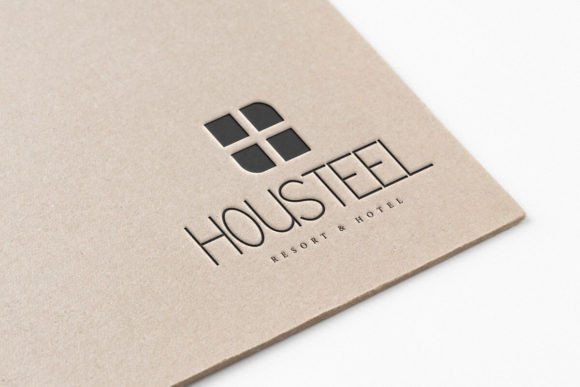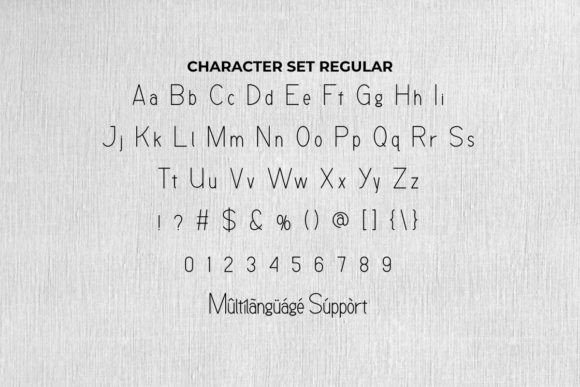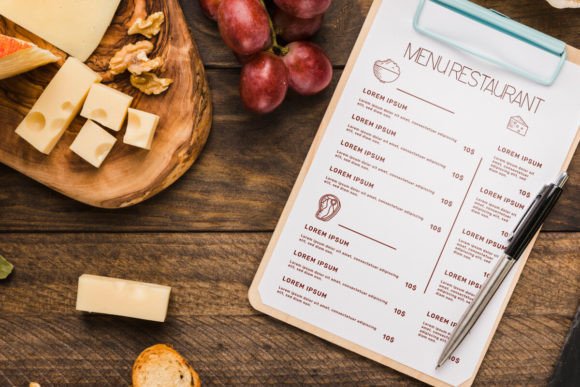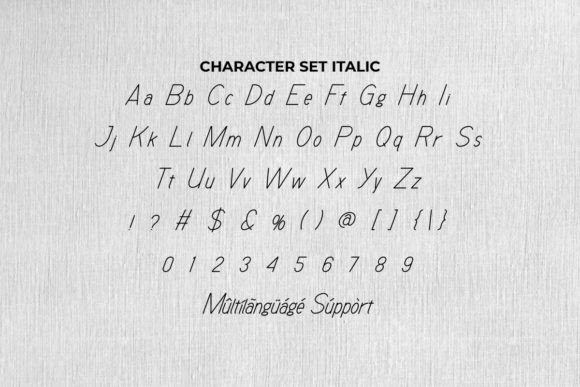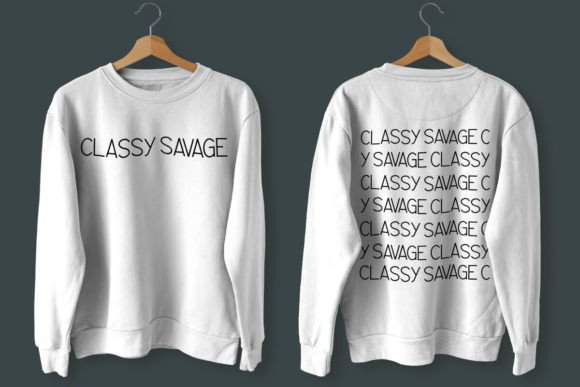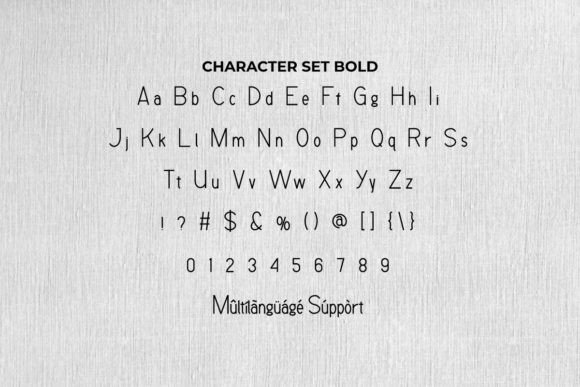
Creating the Perfect Visual Hierarchy
Have you ever stared at a blank page, trying to decide how to organize your design elements? The struggle is real, but it’s also a common occurrence for designers. We’ve all been there, trying to balance text, images, and other visual elements to create a cohesive look. That’s where the right font comes in – and we’re excited to introduce you to the Checklist Font.
Designed by NoahType, Checklist Font is a versatile sans serif font that offers four modern styles: Regular, Italic, Bold, and Bold Italic. Its clean lines and minimalist aesthetic make it the perfect choice for a wide range of industries, from fashion and beauty to hospitality and publishing. For designers, Checklist Font is a valuable tool that can help take their designs to the next level.
Key Features of Checklist Font
- Font Family: Checklist Font is a sans-serif font family designed specifically for creating checklists and to-do lists.
- Font Size: Checklist Font comes in various font sizes, including 12, 14, and 16 points, making it suitable for use in documents, presentations, and web applications.
- Resolution: Designed to be scalable, Checklist Font maintains its clarity and readability at resolutions up to 300 DPI.
- Unique Characteristics: The font features a distinctive checkbox symbol, allowing users to easily create checklists and to-do lists with a professional touch.
Designer Review: Checklist Font
Overall, Checklist Font is a decent sans-serif font that works well in specific situations. ✨ I appreciate its clean and modern appearance, making it suitable for user interfaces and digital products. The font is also highly legible, which is crucial for readability.
Here are some of the font’s strengths:
- ✨ Highly legible, making it perfect for long passages of text.
- ✨ Clean and modern appearance, suitable for UI and digital products.
- ✨ Supports a wide range of languages, making it a great choice for international projects.
However, Checklist Font also has some limitations:
- ⚠️ Limited customization options, which may limit its use in specific design scenarios.
- ⚠️ Not ideal for complex typography or elaborate font combinations.
- ⚠️ Some users may find the font too generic, lacking personality and character.
In conclusion, Checklist Font is a solid choice for projects that require a clean and modern sans-serif font. While it may not be the most versatile or customizable font, it works well in specific situations and is easy to read. If you’re looking for a reliable and legible font, Checklist Font is definitely worth considering.
Checklist Font is commonly used in:
- To-do lists and task management systems.
- Shopping lists and inventory management.
- Training and educational materials.
- Business and marketing materials.
Remember to use Checklist Font consistently throughout your design to create a clear and visually appealing visual hierarchy.